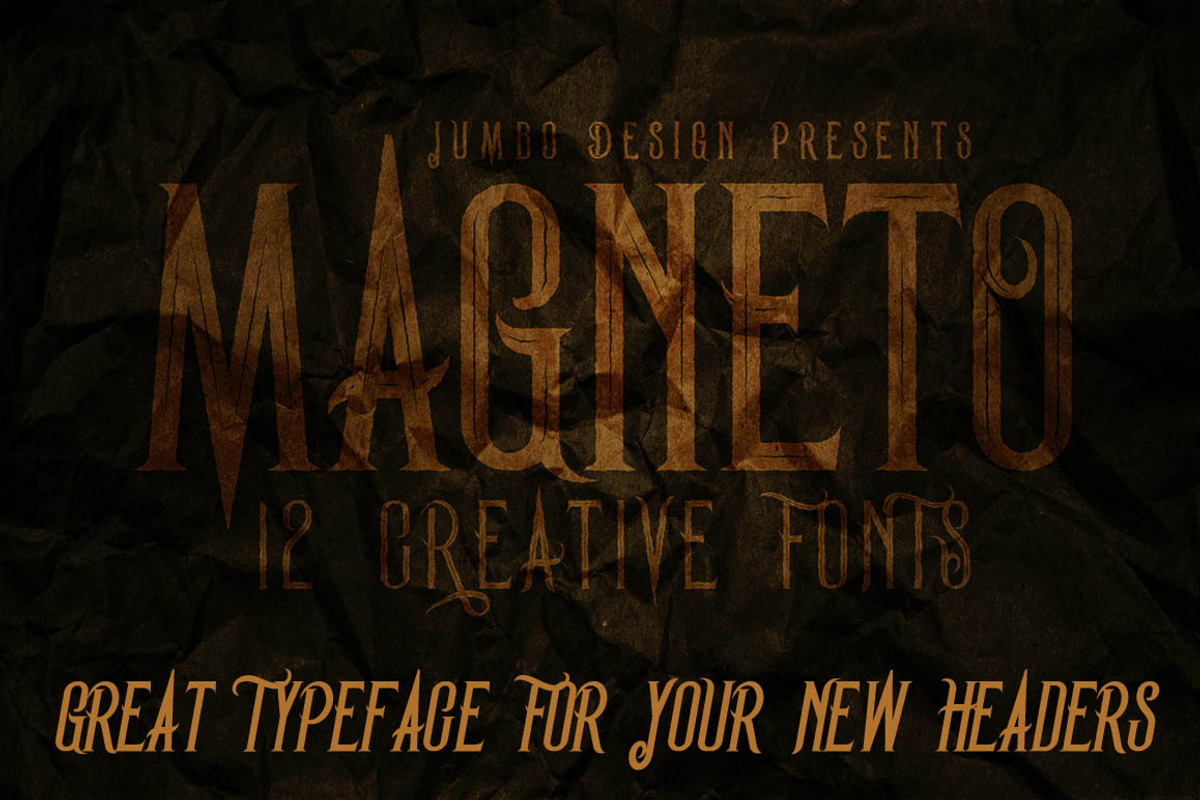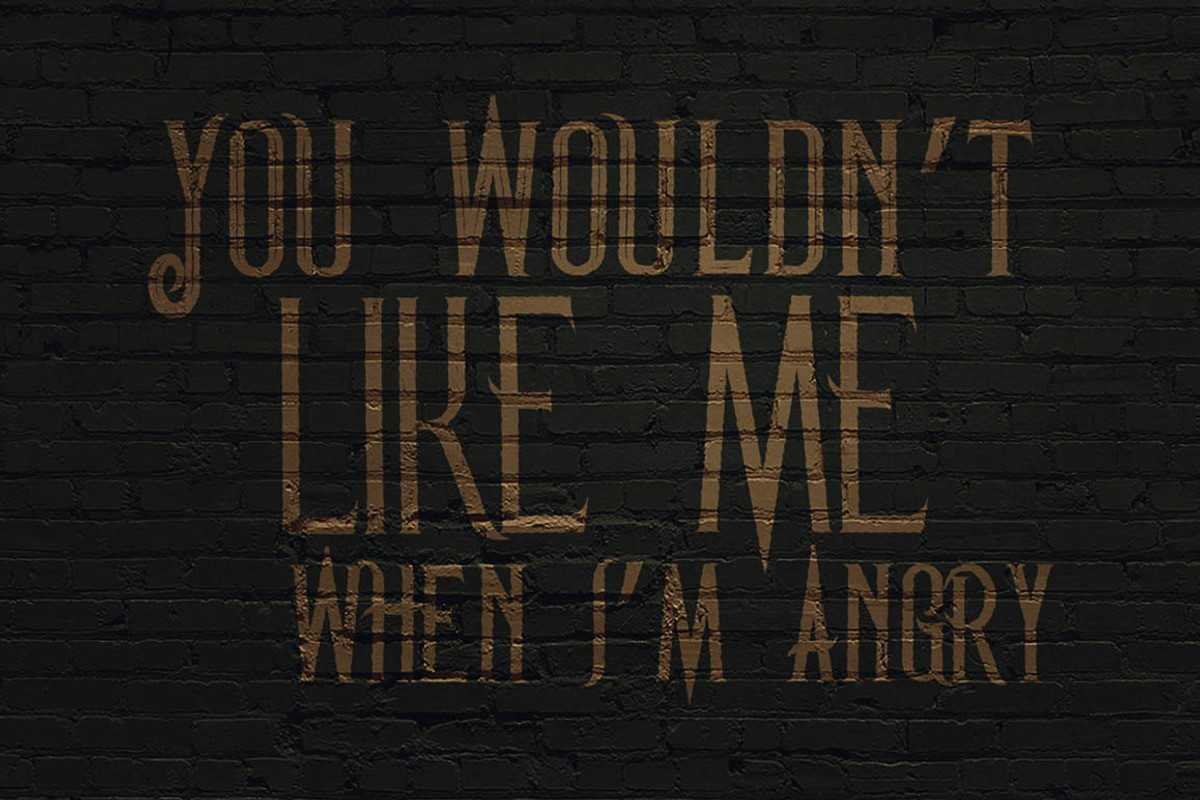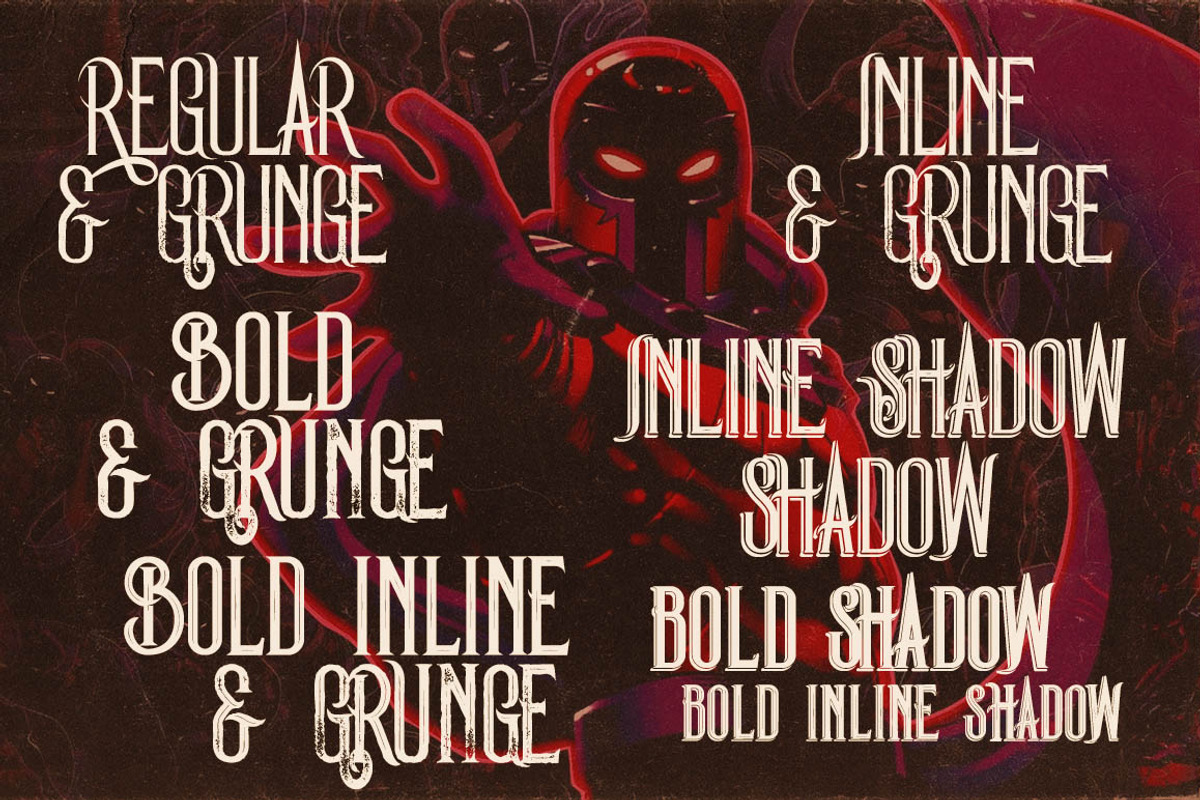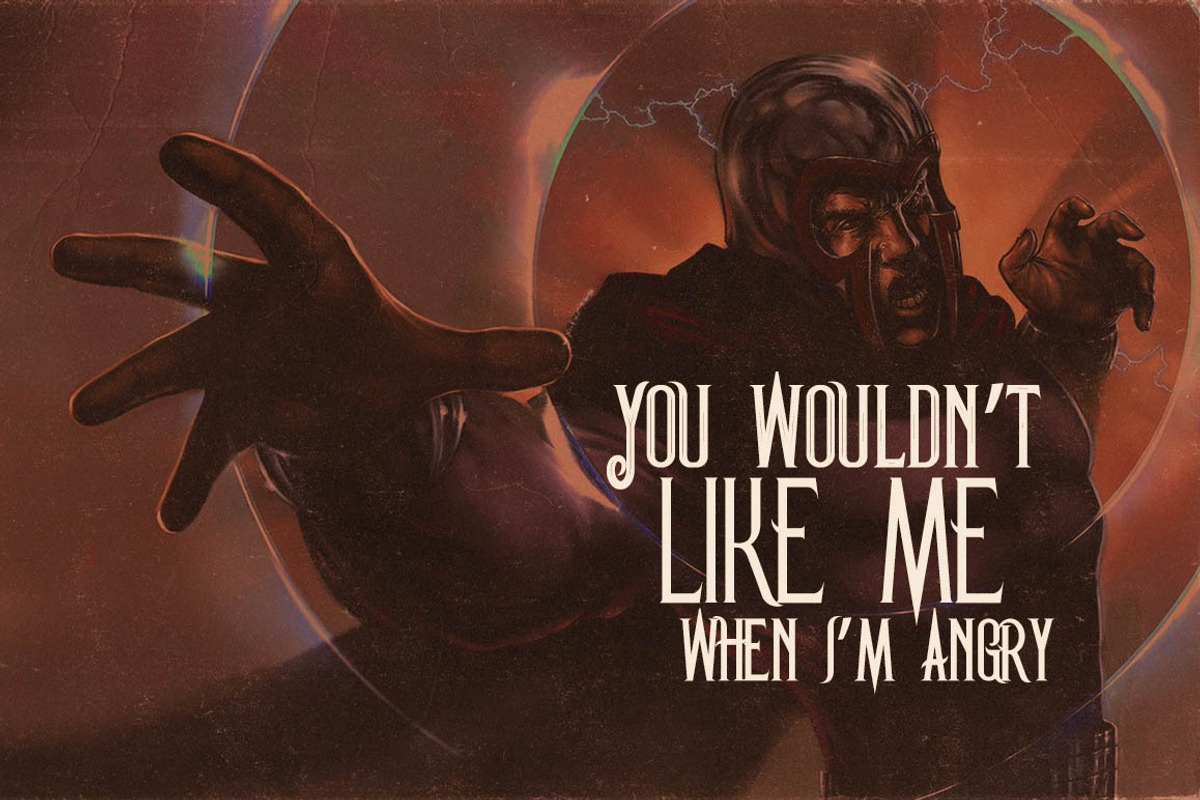
Magneto - Vintage Style Font
Magneto - Vintage Style Font by JumboDesign is a font selected for branding, posters, packaging, typography.
Why Magneto - Vintage Style Font is worth a look
Magneto - Vintage Style Font by JumboDesign fits naturally into Branding, posters, packaging, typography.